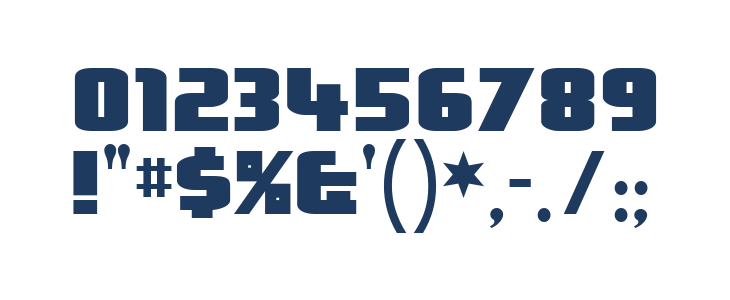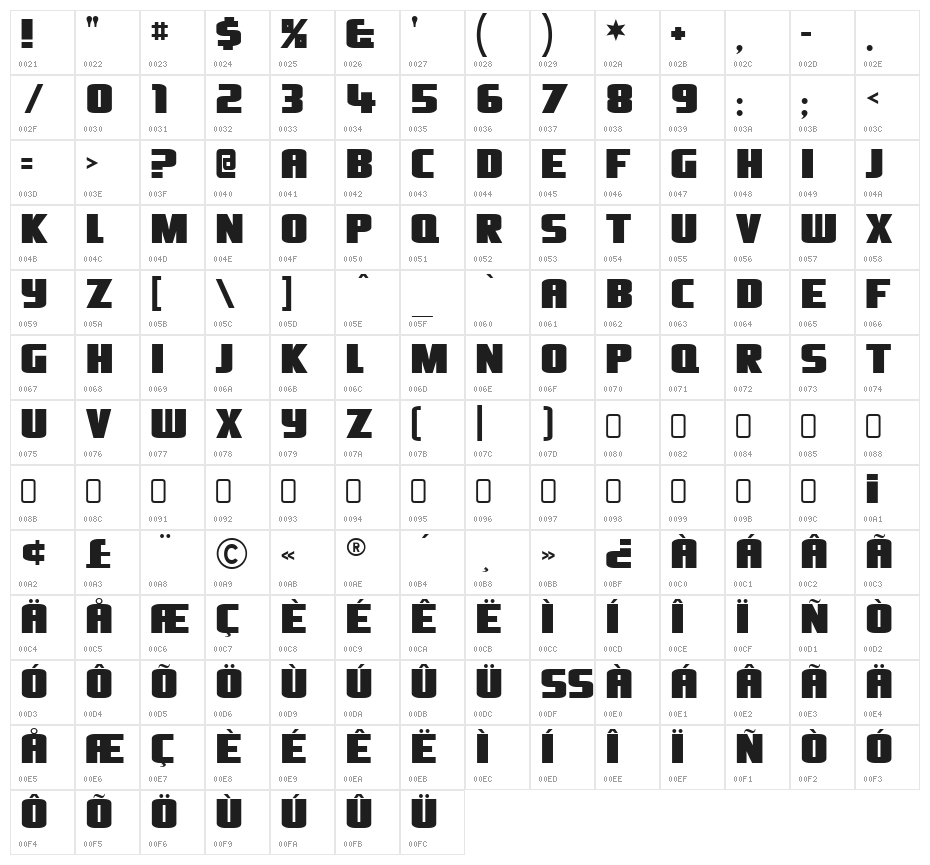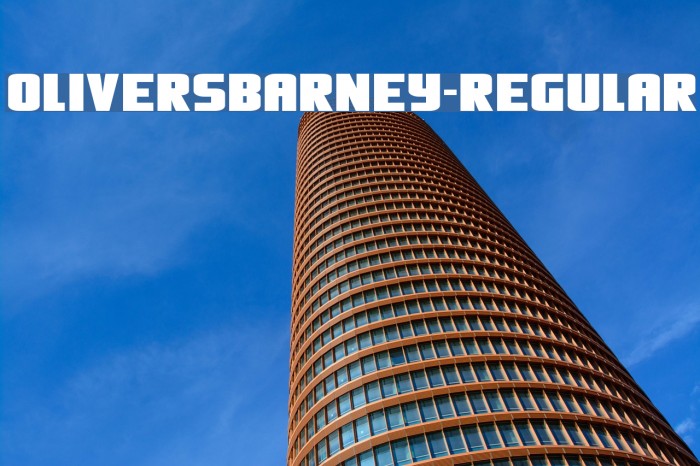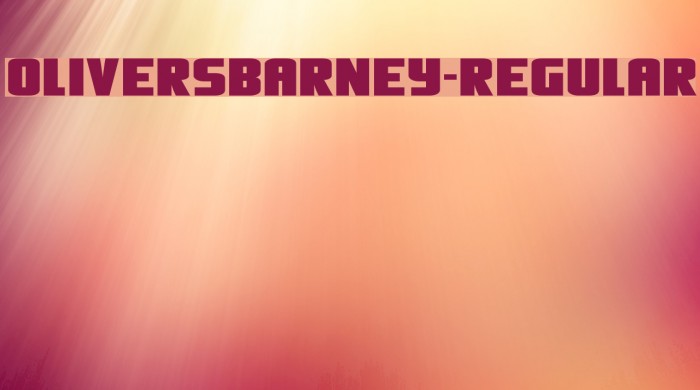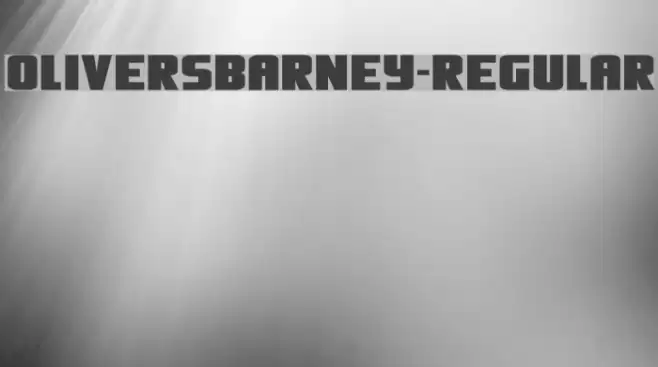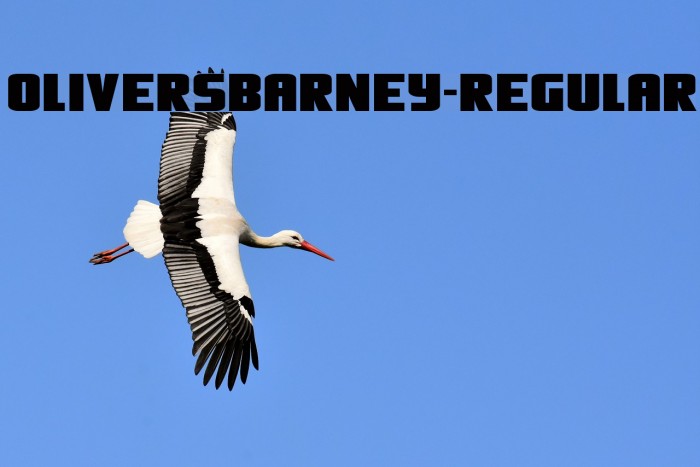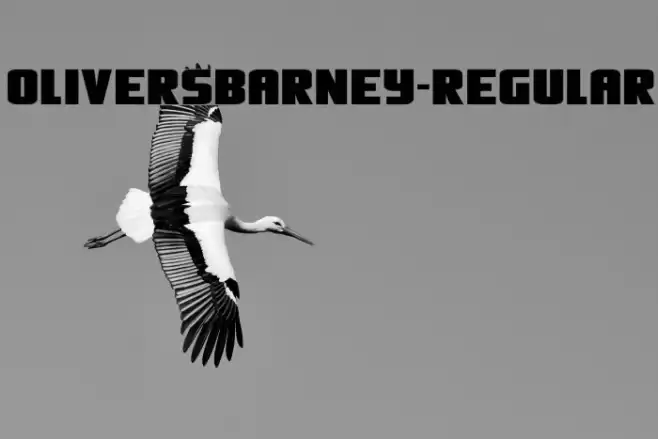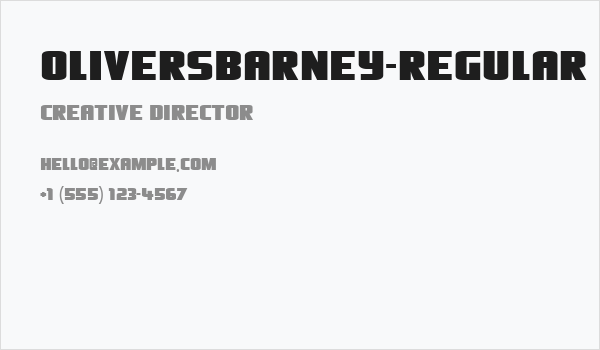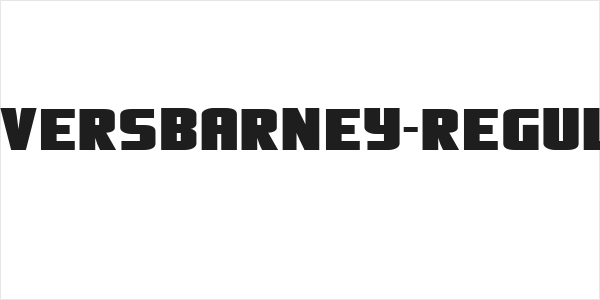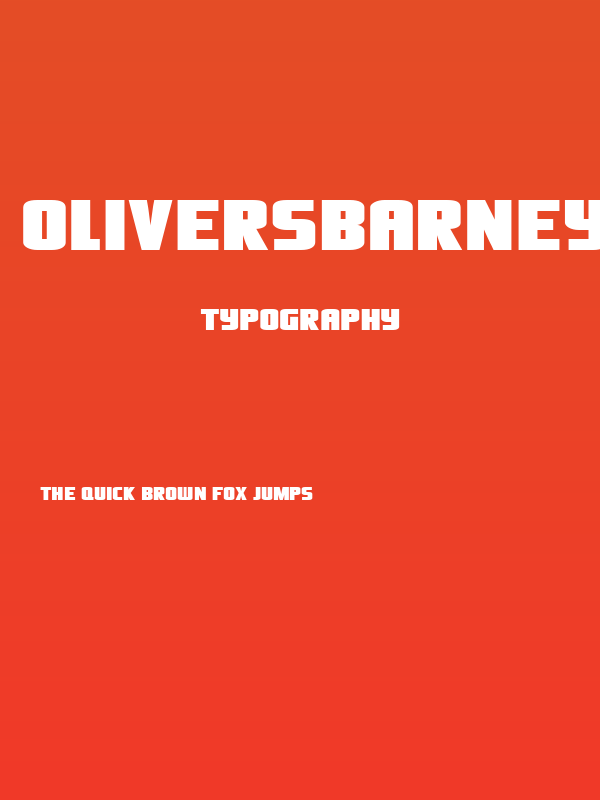
OliversBarney-Regular Font
OliversBarney-Regular Description
This font features a bold and impactful design, characterized by its thick, blocky letters that convey strength and confidence. The uppercase and lowercase letters maintain a consistent width, creating a uniform appearance. The numerals are equally robust, ensuring readability and presence. Special characters are designed with the same boldness, making them stand out effectively. The overall style is modern and assertive, suitable for making a strong visual statement.
| Proposed Projects | Ideal for branding, posters, headlines, and any project requiring a bold statement. |